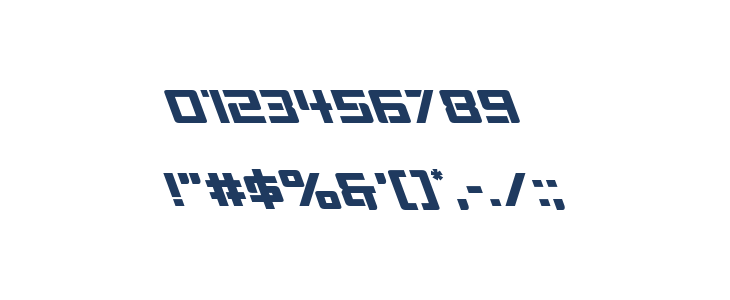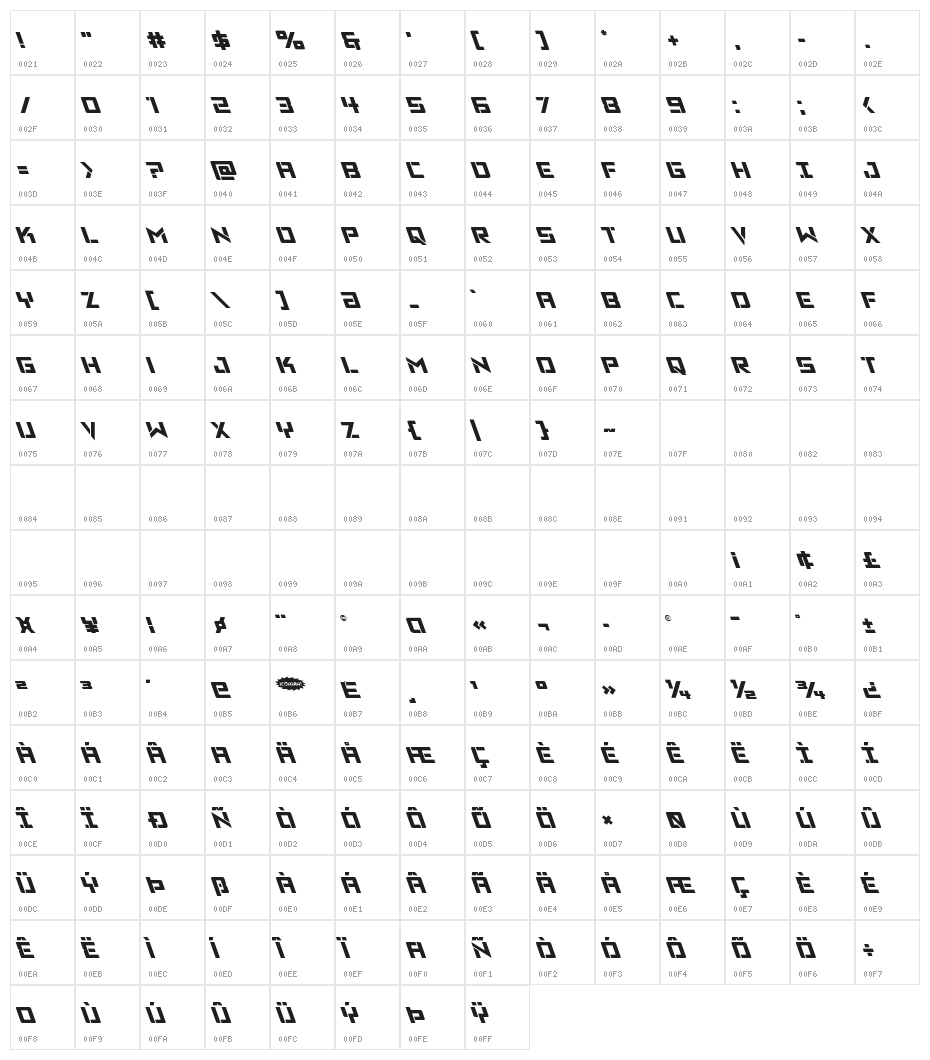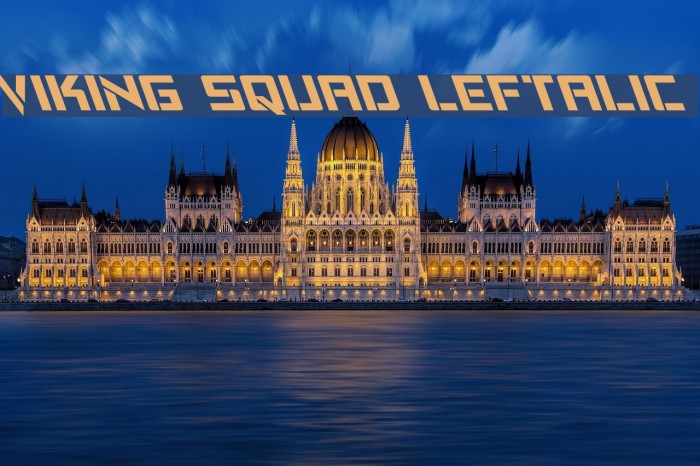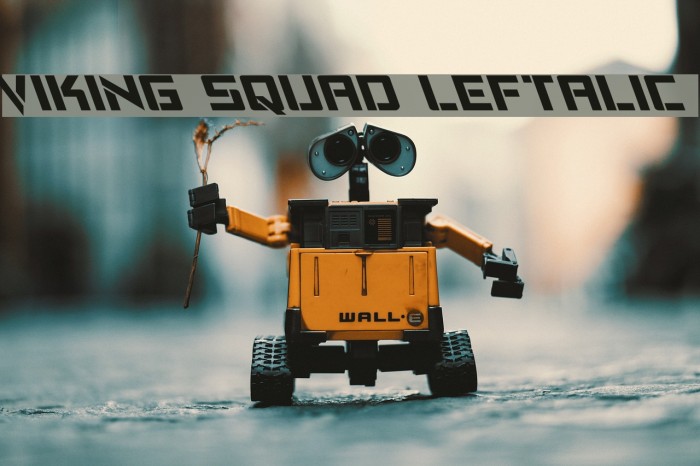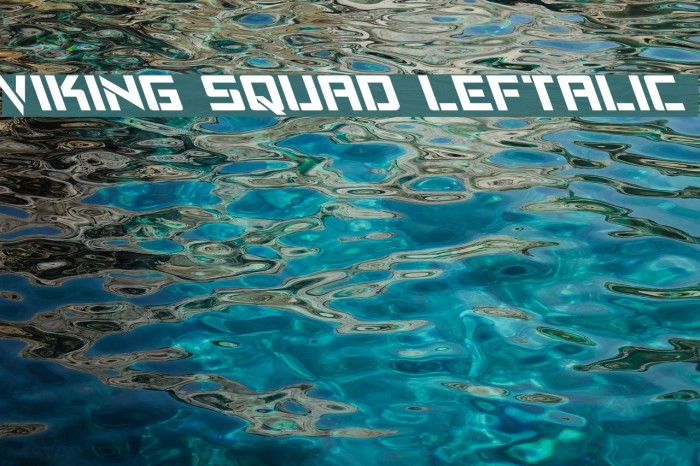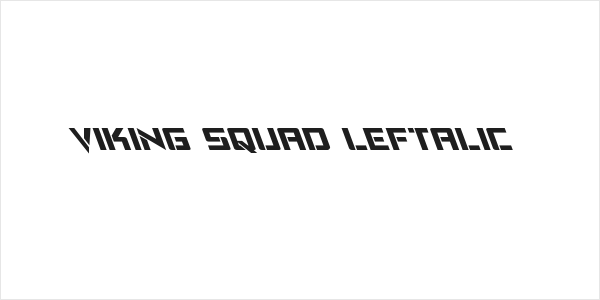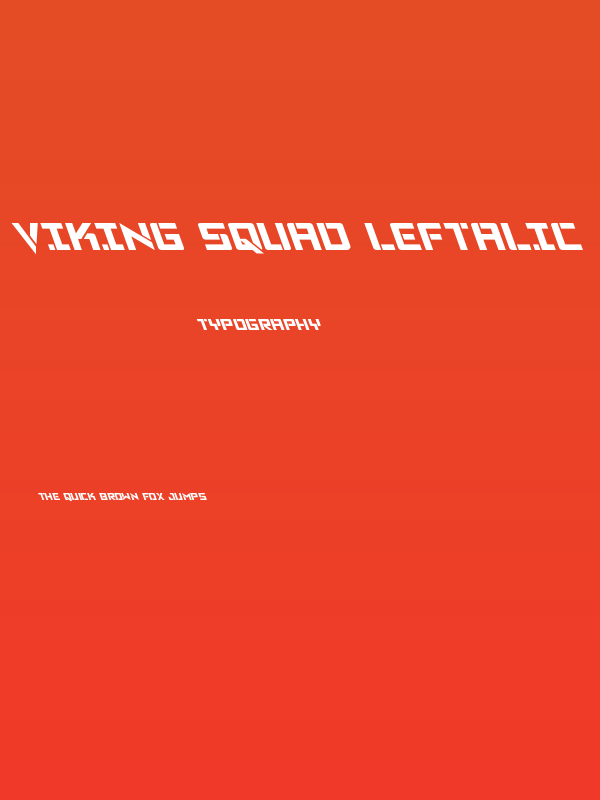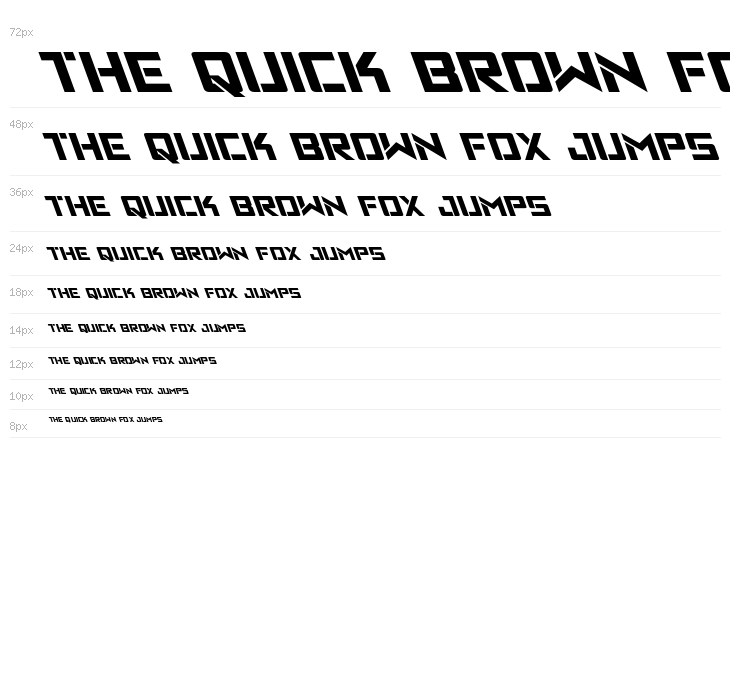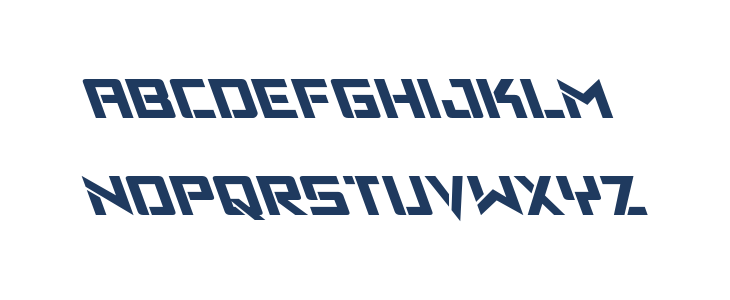
Viking Squad Leftalic Font
Viking Squad Leftalic Description
This font features a bold, angular design with a futuristic and dynamic appearance. The characters are sharply cut with a distinct slant, giving them a sense of motion and energy. The uppercase and lowercase letters maintain a consistent style, with strong geometric shapes and a slightly condensed form. The numbers and special characters follow the same design principles, ensuring uniformity across all glyphs. The overall aesthetic is modern and edgy, making it suitable for projects that require a bold statement.